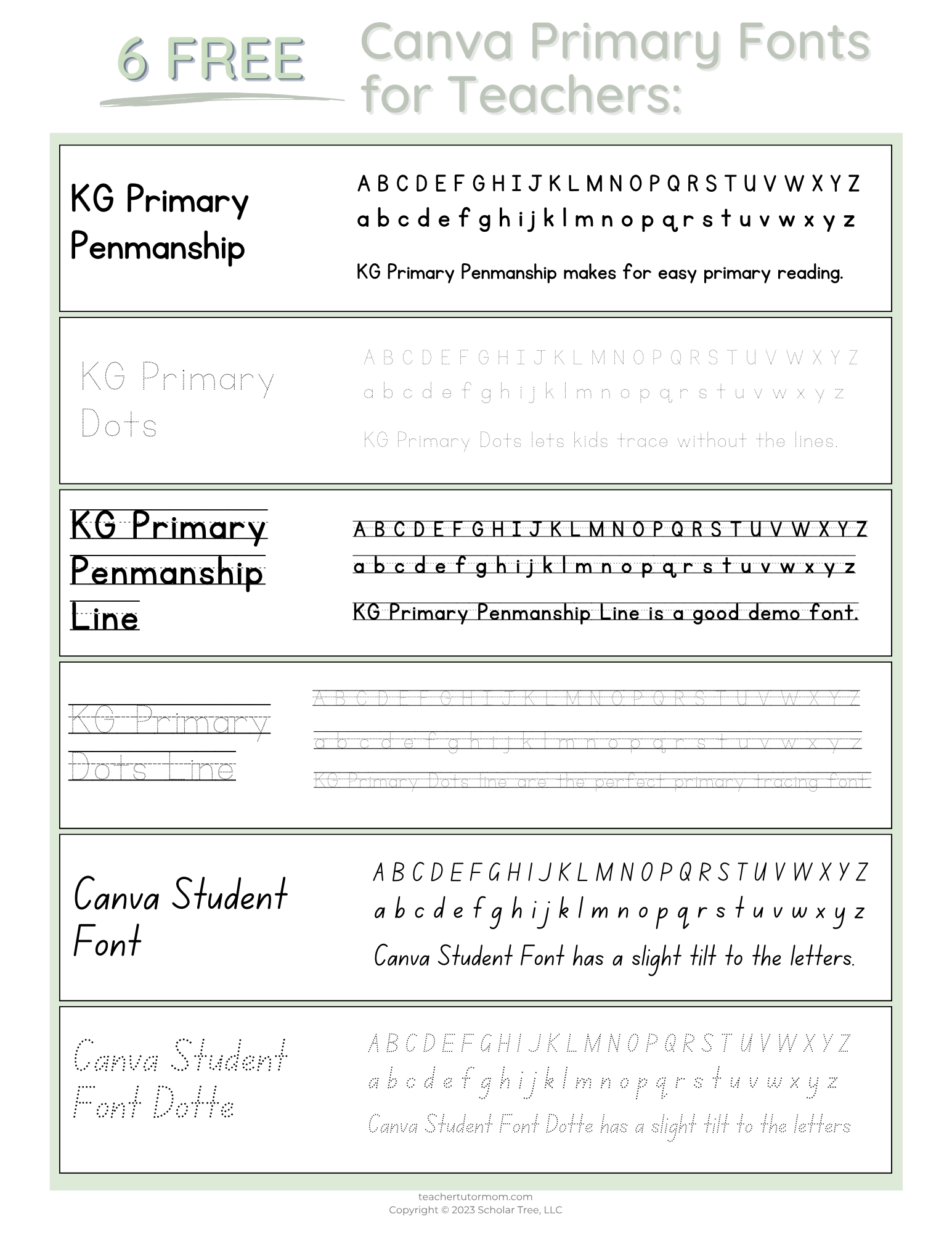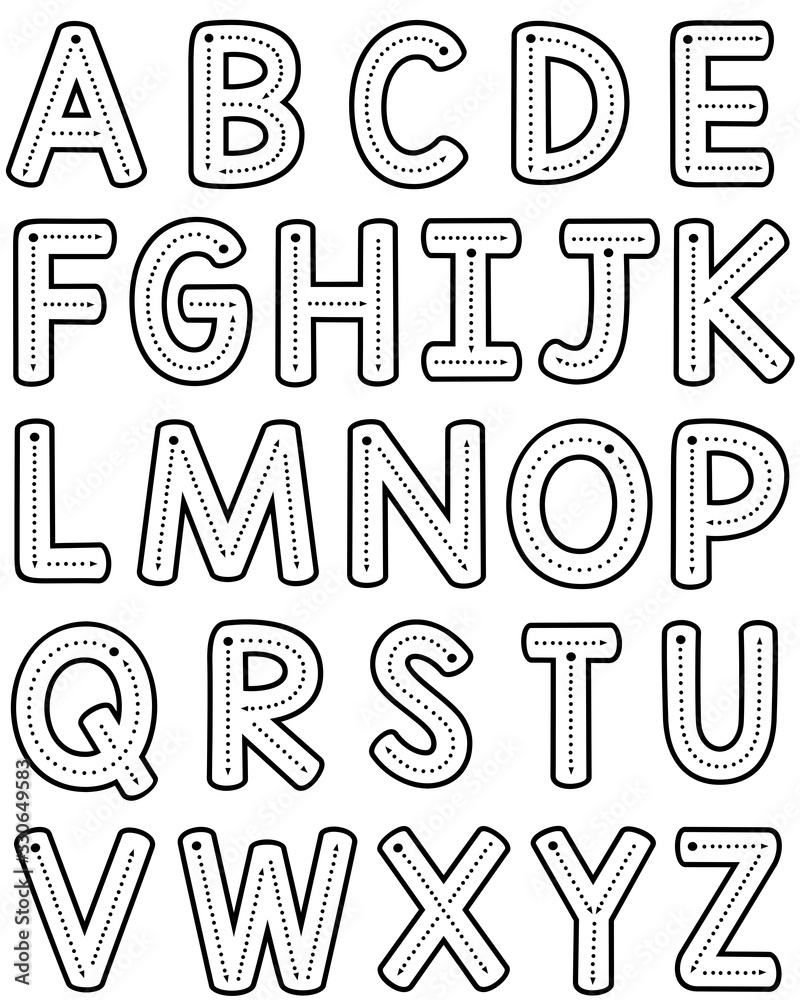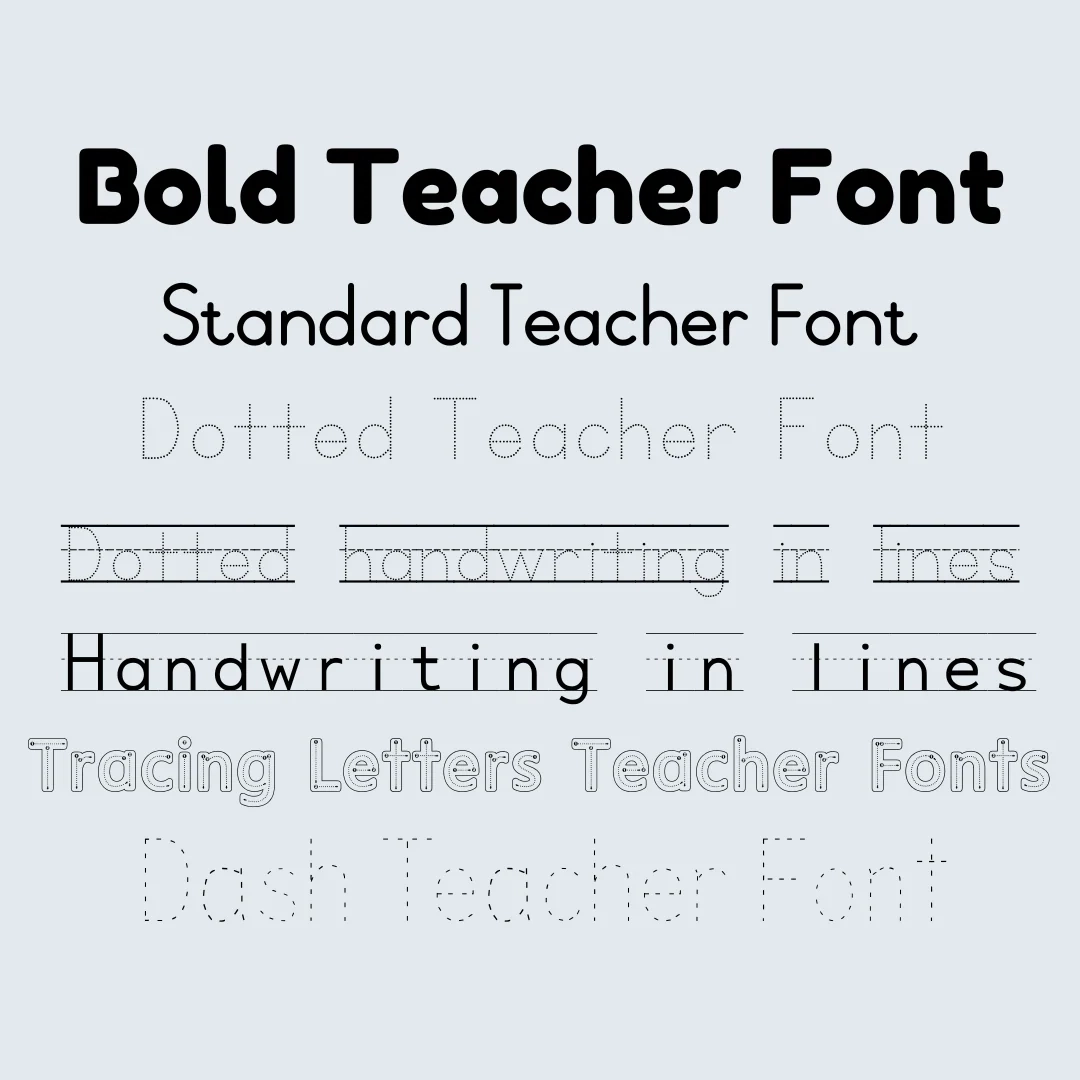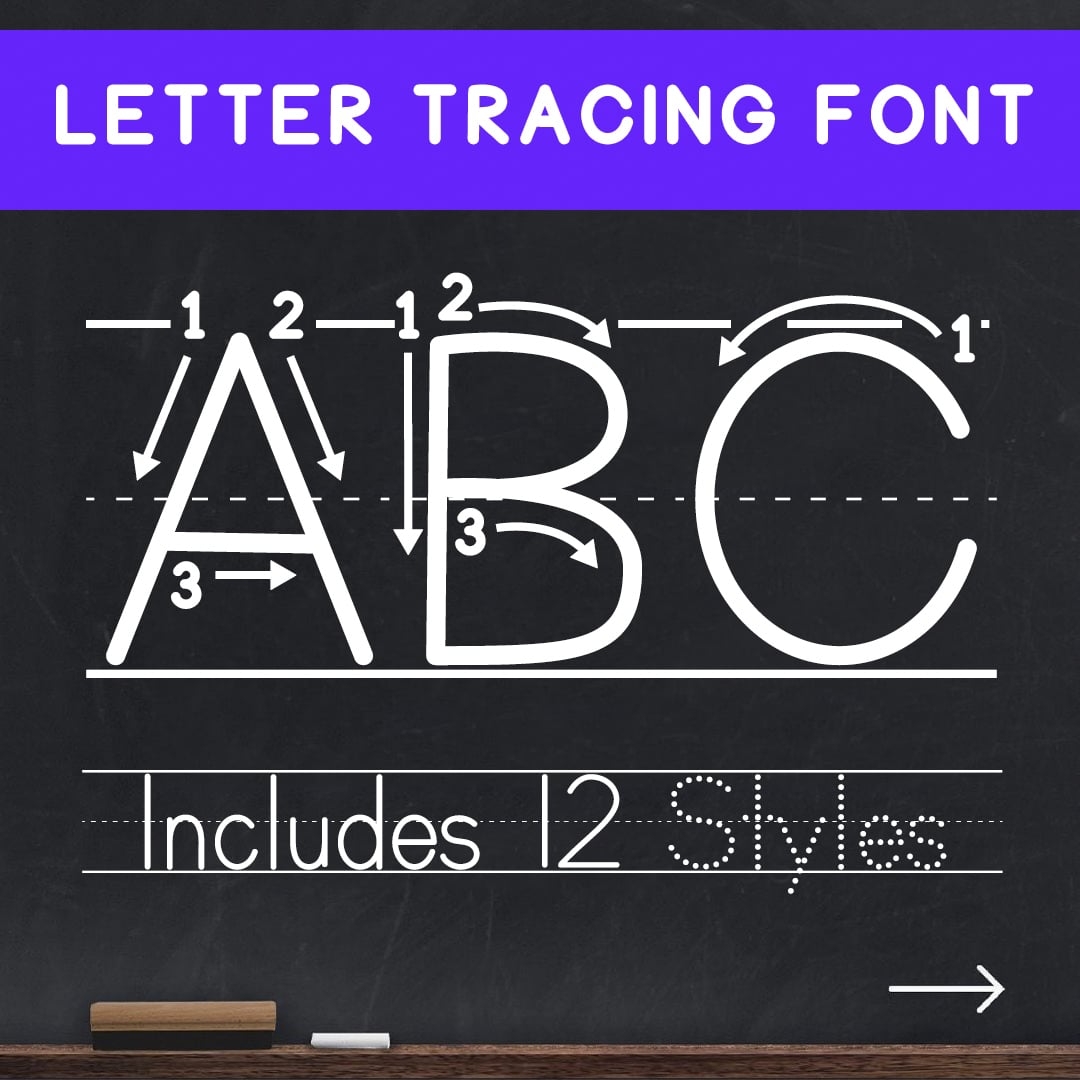
Teachers often seek creative ways to engage their students, and using tracing fonts can be a fun method. These fonts not only make learning enjoyable but also help improve handwriting skills in young learners.
Free Tracing Fonts For Teachers
Free tracing fonts for teachers can enhance lesson plans and activities. These fonts allow students to practice writing letters and numbers while having fun. They can be used for worksheets, flashcards, and even classroom decorations.
Many websites offer a variety of free tracing fonts that are easy to download. Teachers can choose from different styles, including cursive and block letters, ensuring that they find the perfect fit for their students’ needs.
Incorporating free tracing fonts into your teaching toolkit can significantly benefit your students. Not only do they make learning enjoyable, but they also foster a love for writing that lasts a lifetime.
Exploring free tracing fonts opens up a world of creative possibilities for teachers. By utilizing these resources, educators can inspire their students while making learning an enjoyable experience.